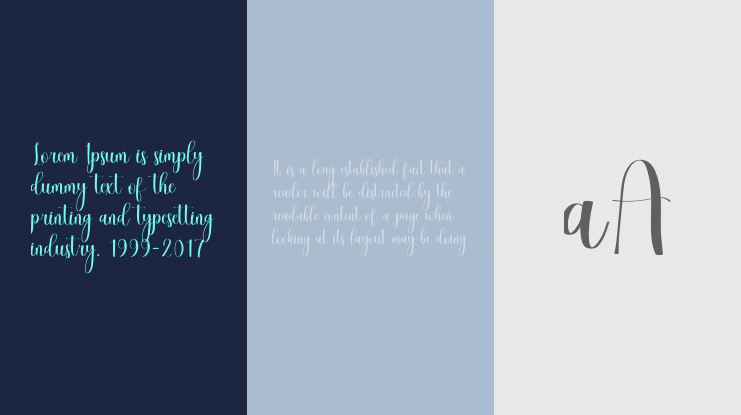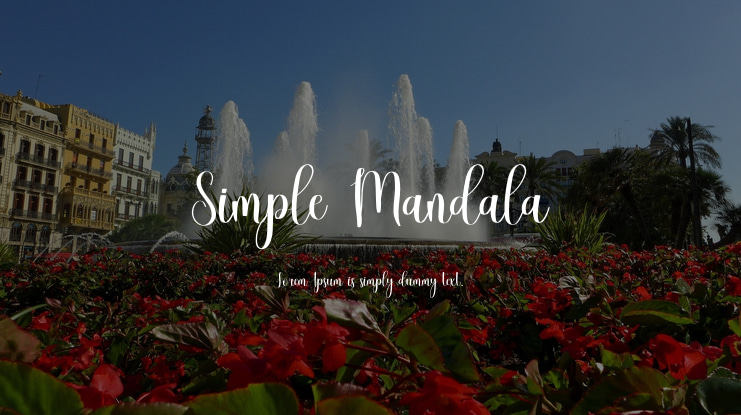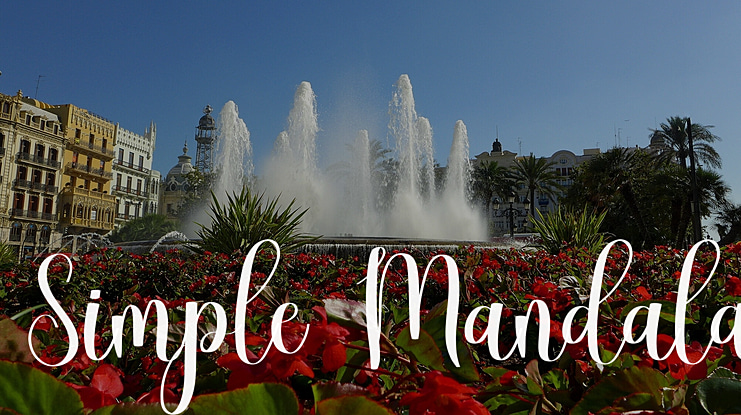
Simple Mandala Font
This is a relaxed and beautiful paint brush handwritten font. It can be used for various purposes such as logos, wedding invitations, headings, t-shirts, letterhead, signage, labels, news, posters, badges and so much more.